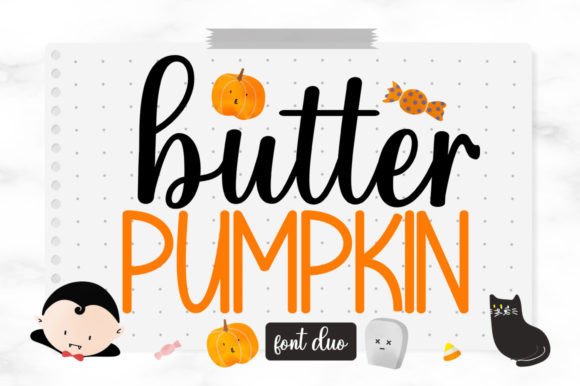
In the realm of typography, there exists a font that captures the essence of a crisp autumn day – a font that dances across your screen like leaves pirouette in a gentle breeze. Introducing Butter Pumpkin, an enchanting handwritten font duo that will bring warmth and whimsy to your creative endeavors. Let its playful script and elegant sans dance together in perfect harmony, captivating your audience with each stroke.
Journey into a world where words come alive, where love quotes ignite passion, and autumnal projects exude rustic charm. Butter Pumpkin's script font, with its graceful curves and lively strokes, is an ode to the season of falling leaves and cozy sweaters. Its sans counterpart, crisp and refined, brings a touch of stability to the composition, creating a delightful contrast that's sure to turn heads.
Picture your Instagram feed adorned with enchanting love quotes, each word flowing effortlessly in Butter Pumpkin's embrace. The script font's organic charm adds a touch of intimacy, inviting your followers to immerse themselves in the emotions of your prose. Or envision your autumn-themed invitations, menus, and posters, their designs elevated by Butter Pumpkin's unique character. Its versatility knows no bounds, catering to a myriad of creative expressions.
With Butter Pumpkin at your fingertips, you'll embark on a transformative lettering adventure. Your designs will blossom with charm, captivating your audience with every scroll and click. Join the creative revolution and let Butter Pumpkin ignite your imagination.